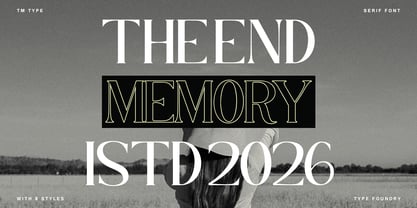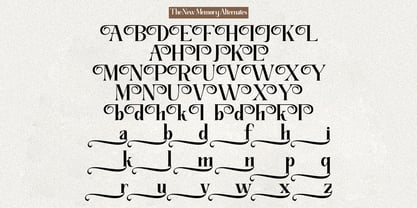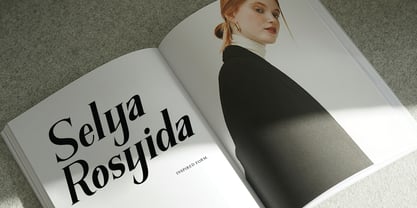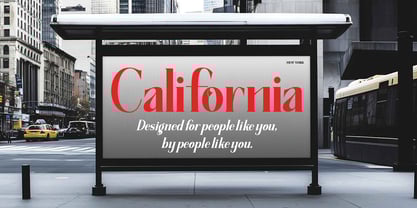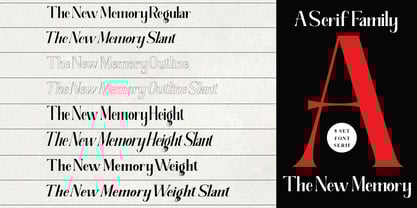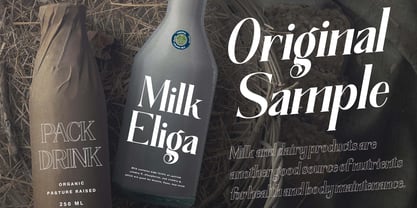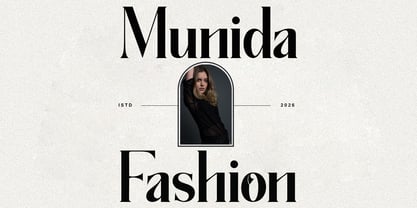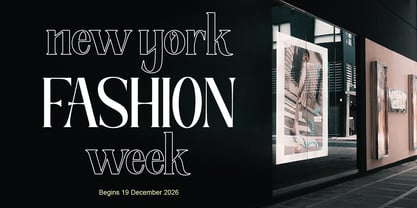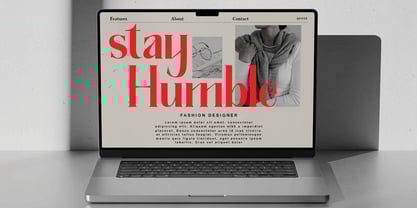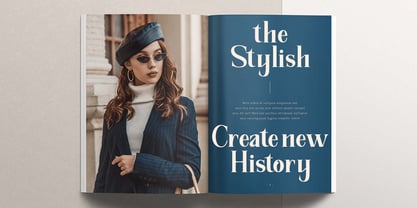
The New Memory
von TM Type
Die Schriftfamilie The New Memory wurde von Teuku Bustami entworfen und von TM Type veröffentlicht. The New Memory enthält 8 Stile und Familienpaketoptionen. Mehr über diese Familie
The New Memory is a beautiful handwritten font with a flowing and elegant style. It features a varied baseline, fine lines, and stunning alternates. The New Memory is perfect for creating a personal and eye-catching touch to your designs, such as wedding invitations, thank you cards, quotes, greeting cards, logos, business cards, and more. Here are some of the key features of the The New Memory font: Handwritten style with a flowing and elegant look Varied baseline Fine lines Stunning alternates Versatile and can be used for a variety of purposes The New Memory Contains a complete set: - 8 Type Font Uppercase Lowercase Alternatives Ligatures Punctuation Numbers Multilingual support. Overall, The New Memory is a beautiful and versatile handwritten font that is perfect for creating a personal and eye-catching touch to your designs.
Designer: Teuku Bustami
Foundry: TM Type